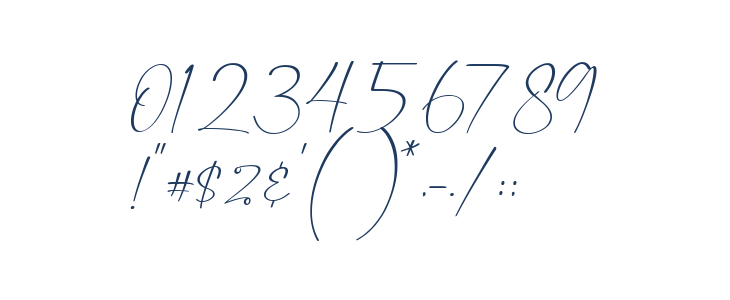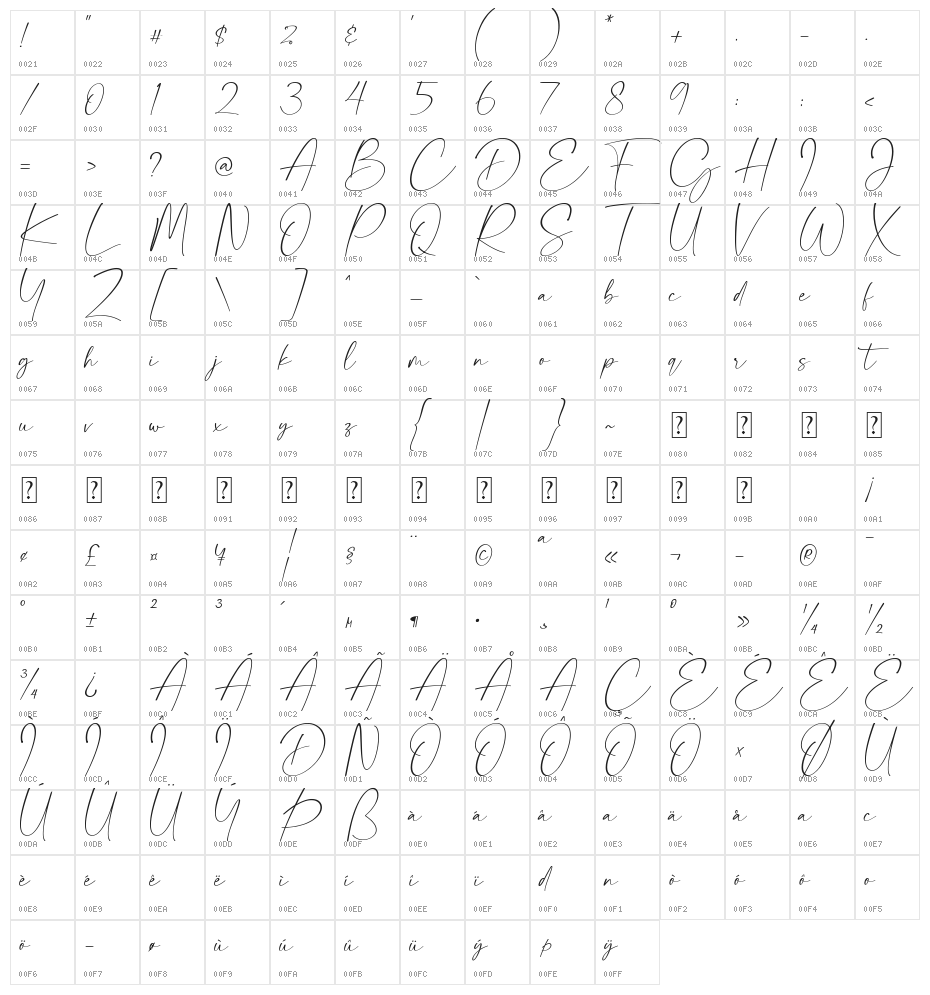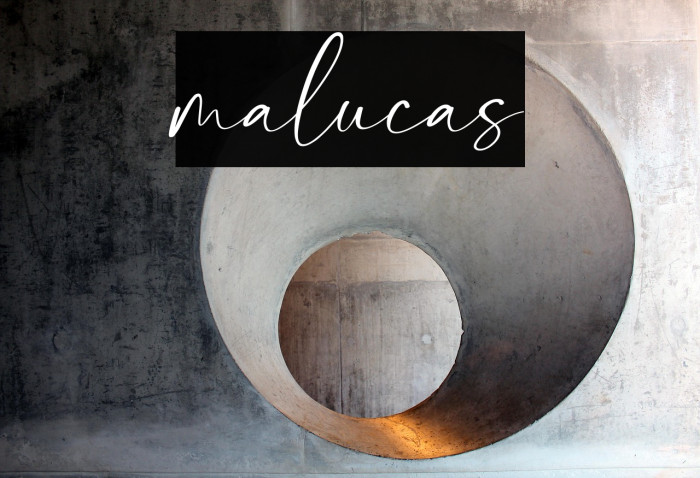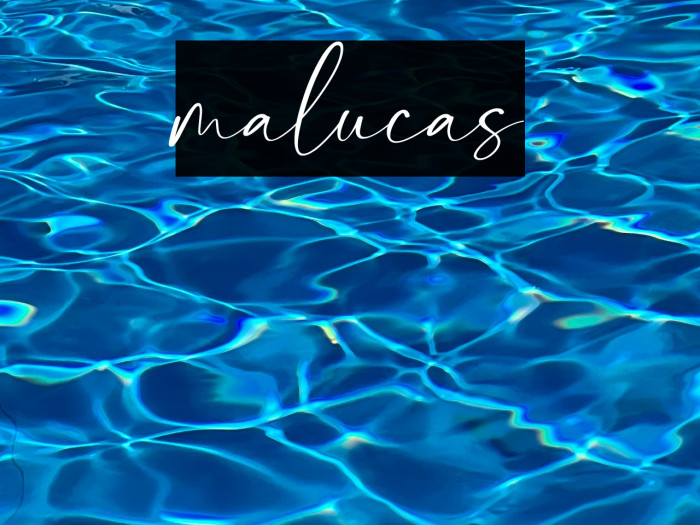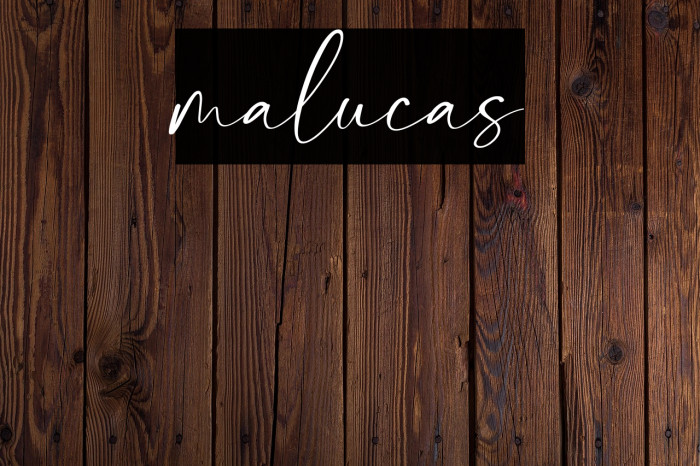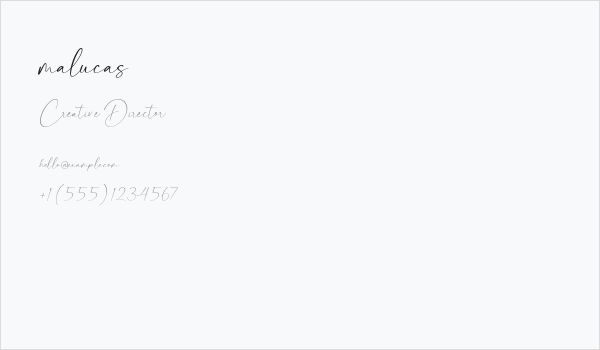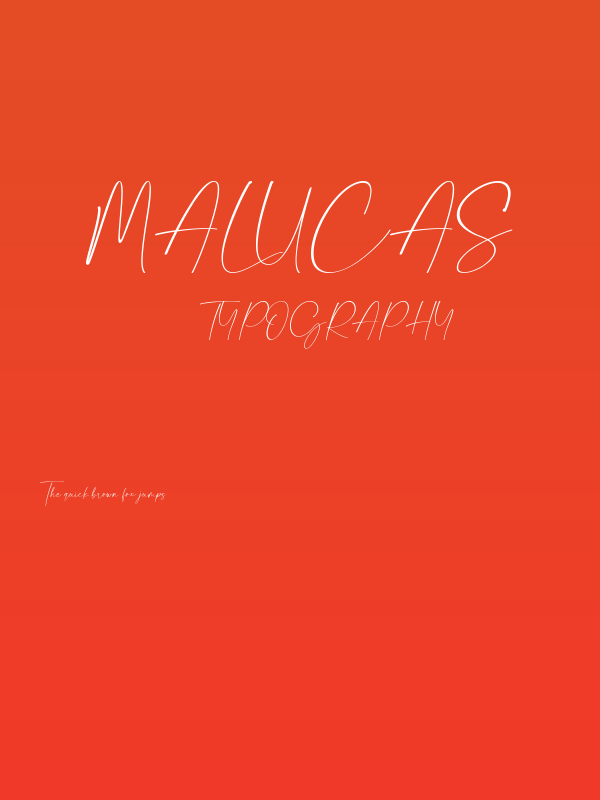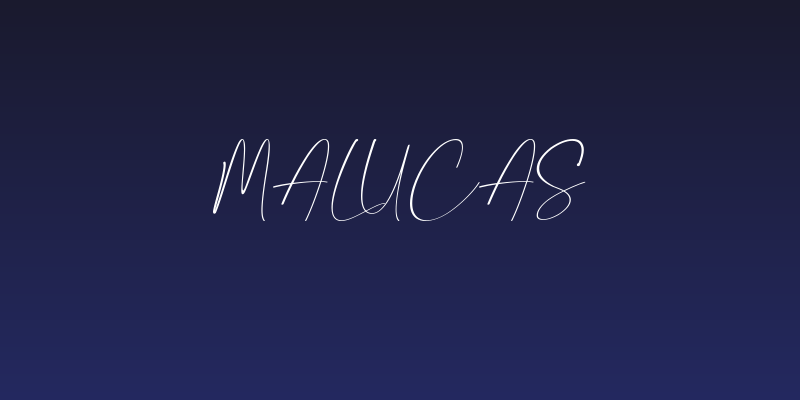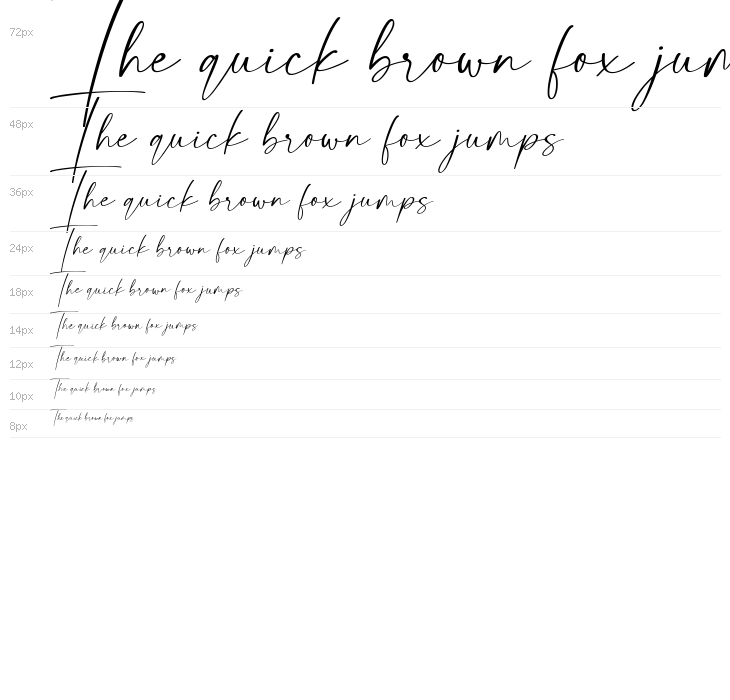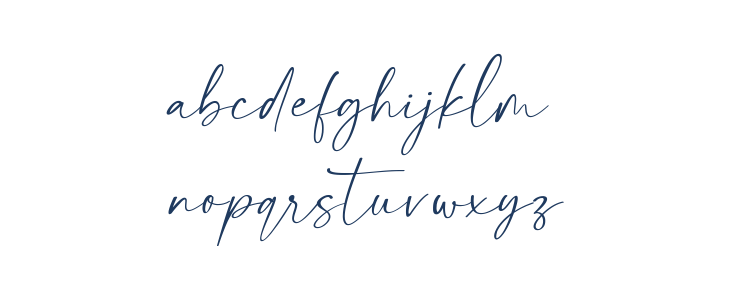
malucas Font
malucas Description
This font features an elegant and flowing script style, characterized by its smooth, continuous strokes and a handwritten appearance. The uppercase letters are tall and slender, with a slight slant that adds a sense of movement and grace. The lowercase letters maintain a consistent flow, with some letters featuring loops and flourishes that enhance its decorative nature. The numerals are clear and legible, matching the overall style with their rounded and slightly elongated forms. Special characters are thoughtfully designed to complement the script, maintaining the font's cohesive aesthetic. This font exudes a sense of sophistication and is ideal for projects that require a personal, artistic touch.
| Use Case | Logos, Invitations, Decorative text |
| Proposed Projects | Ideal for wedding invitations, greeting cards, branding, and elegant packaging designs. |